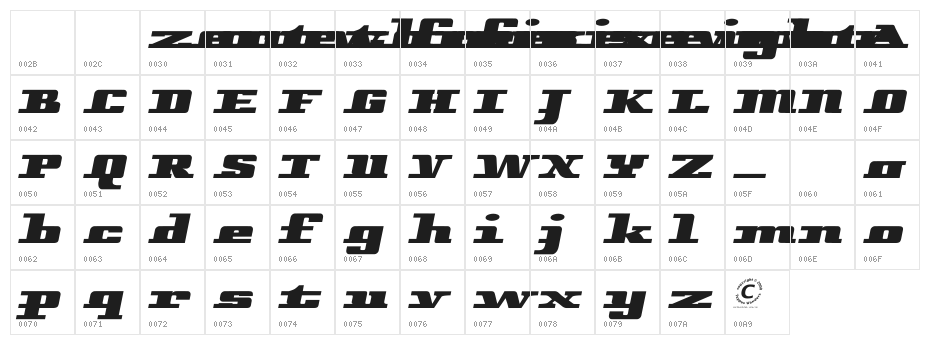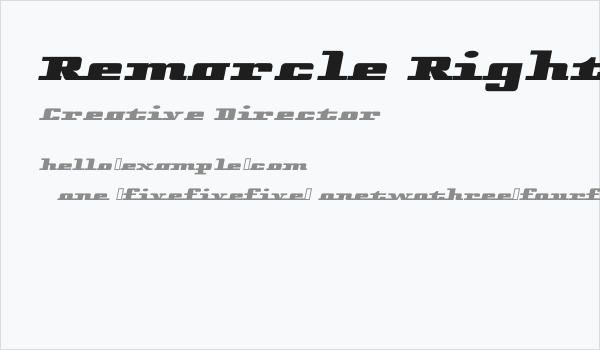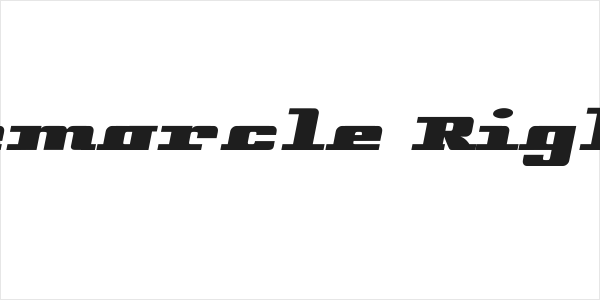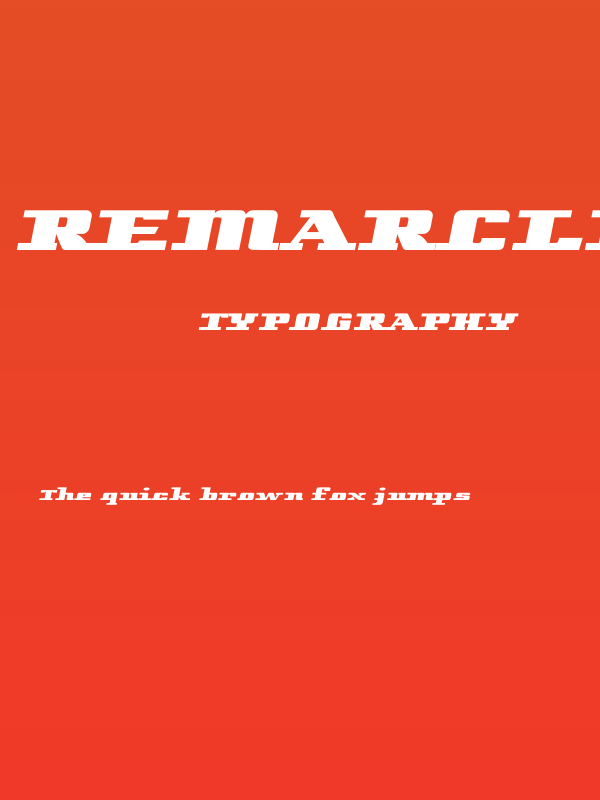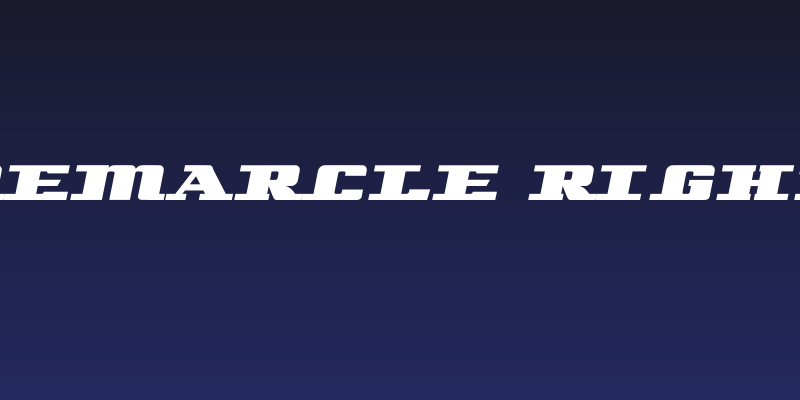
Remarcle Right Font
Remarcle Right Description
This font features a bold and dynamic style, characterized by its strong geometric shapes and angular lines. The uppercase letters are particularly striking, with a forward-leaning stance that conveys a sense of motion and energy. The lowercase letters maintain this angular theme, providing a cohesive look across the typeface. The numerals are distinct and maintain the boldness of the alphabet, ensuring readability. Special characters are designed with the same attention to detail, fitting seamlessly into the overall aesthetic. This font is ideal for projects that require a modern and impactful look.
| Proposed Projects | Ideal for sports branding, dynamic posters, and modern advertising campaigns. |